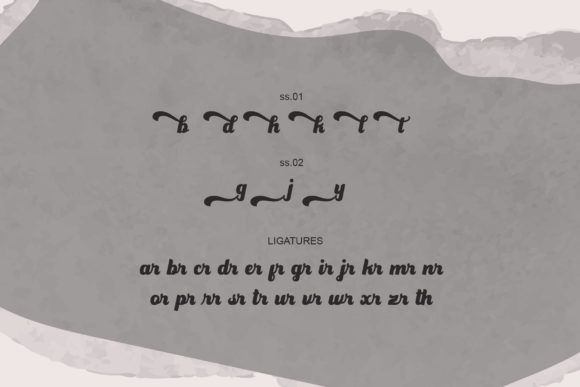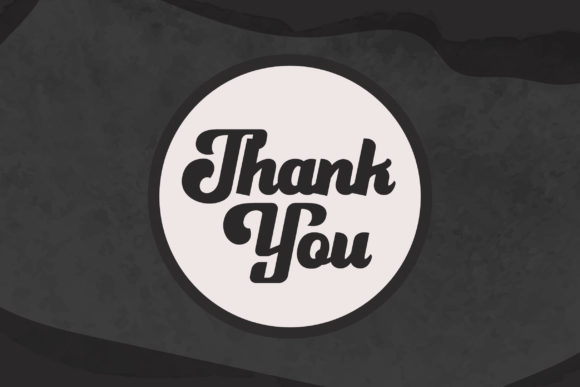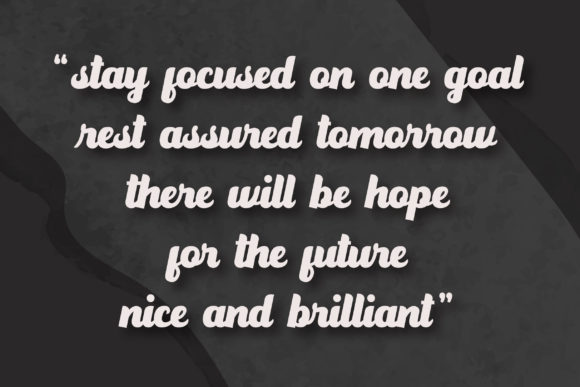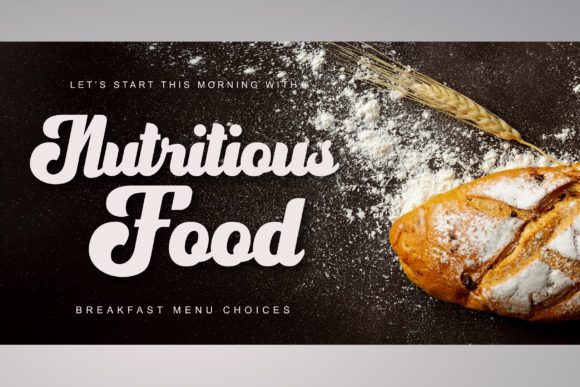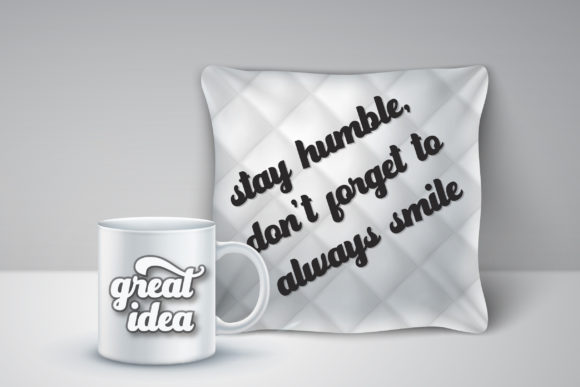
About Qonstyle Font
Qonstyle is a gorgeous and bold handwritten font, crafted to give your headlines and logotype projects a stylish touch. This font is PUA encoded which means you can access all of the glyphs and swashes with ease!